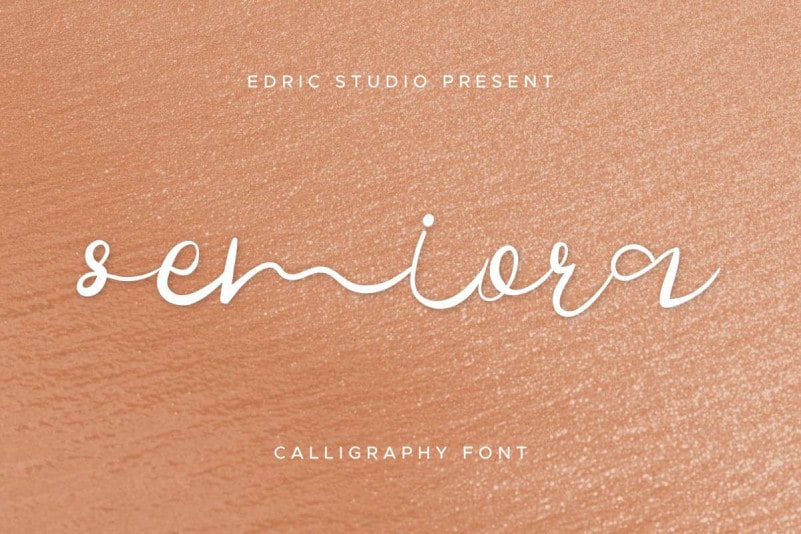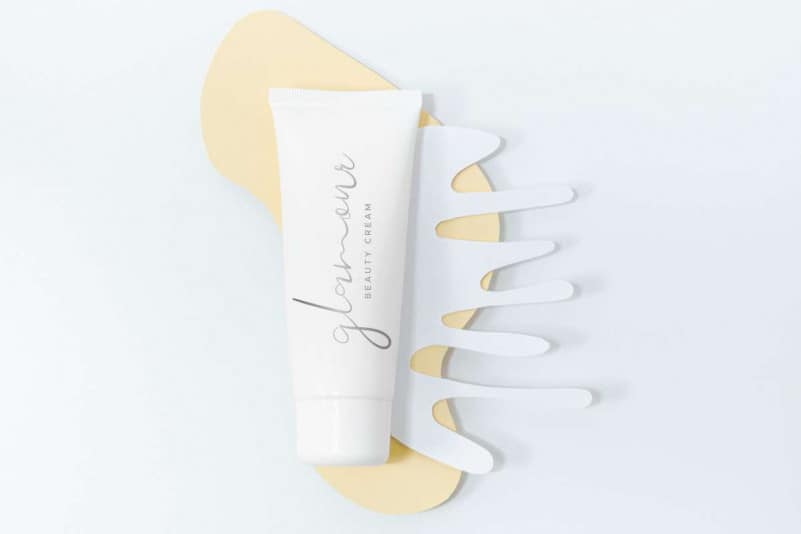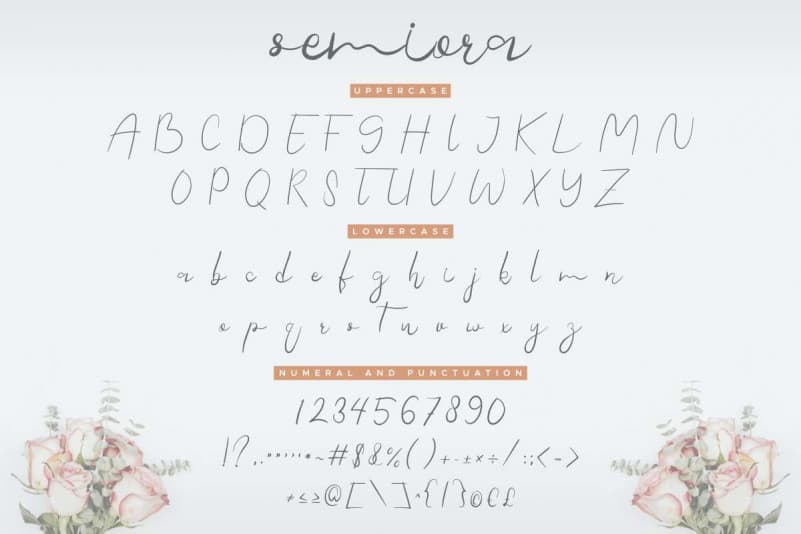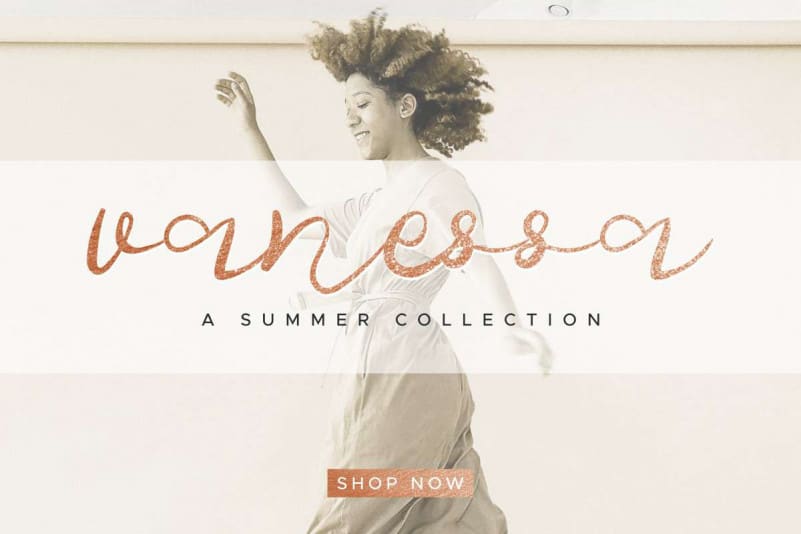
Semiora Calligraphy Font
Semiora Calligraphy Font is an exclusive calligraphy script typeface with brush style. This font has a stunning characters set, perfectly managed with well spaced and kerning. The theme style of this font will elegant, beuatiful, stylish, sophisticated and classic brush calligraphic style.
Semiora Calligraphy Font will be great for any projects including : branding, logo, stationery, business card, signage, flyer, brochure etc. Almost all industries will be match for this typeface: wedding, events, real estate, architect, law firm, florist, gardening, makeup artist, travel, hotel, musician etc